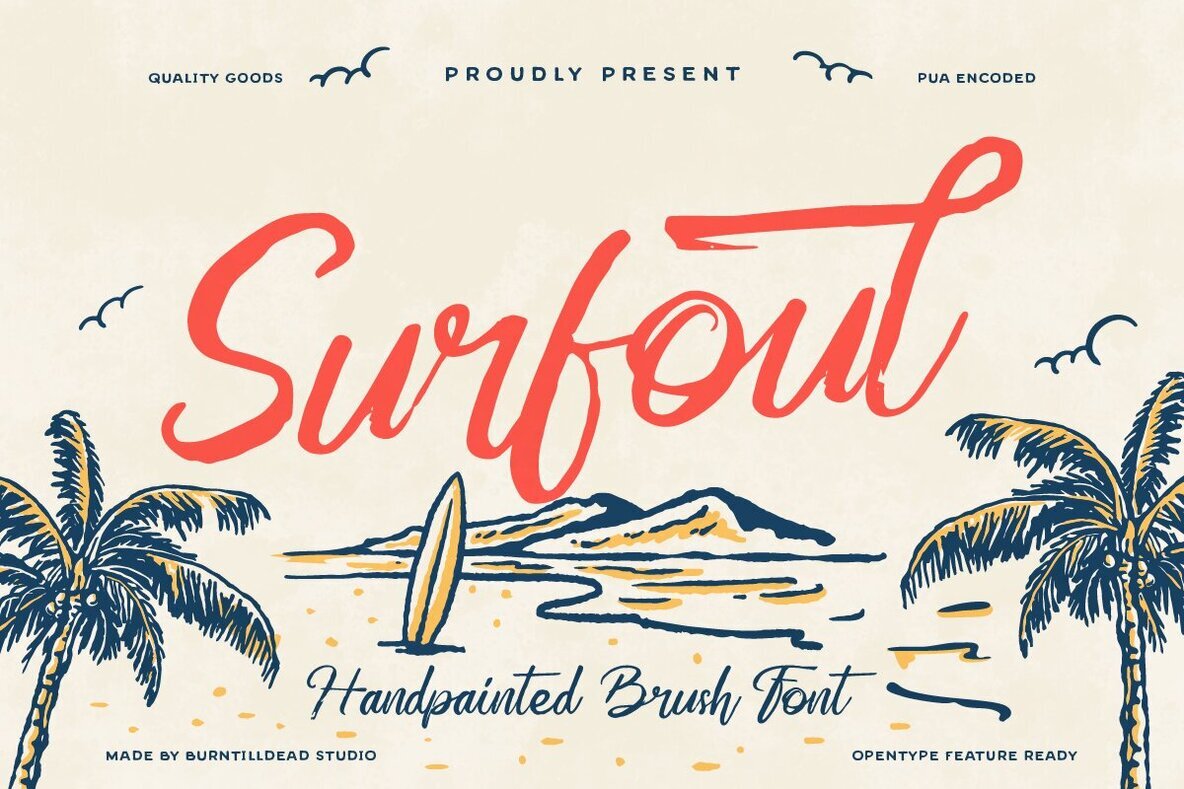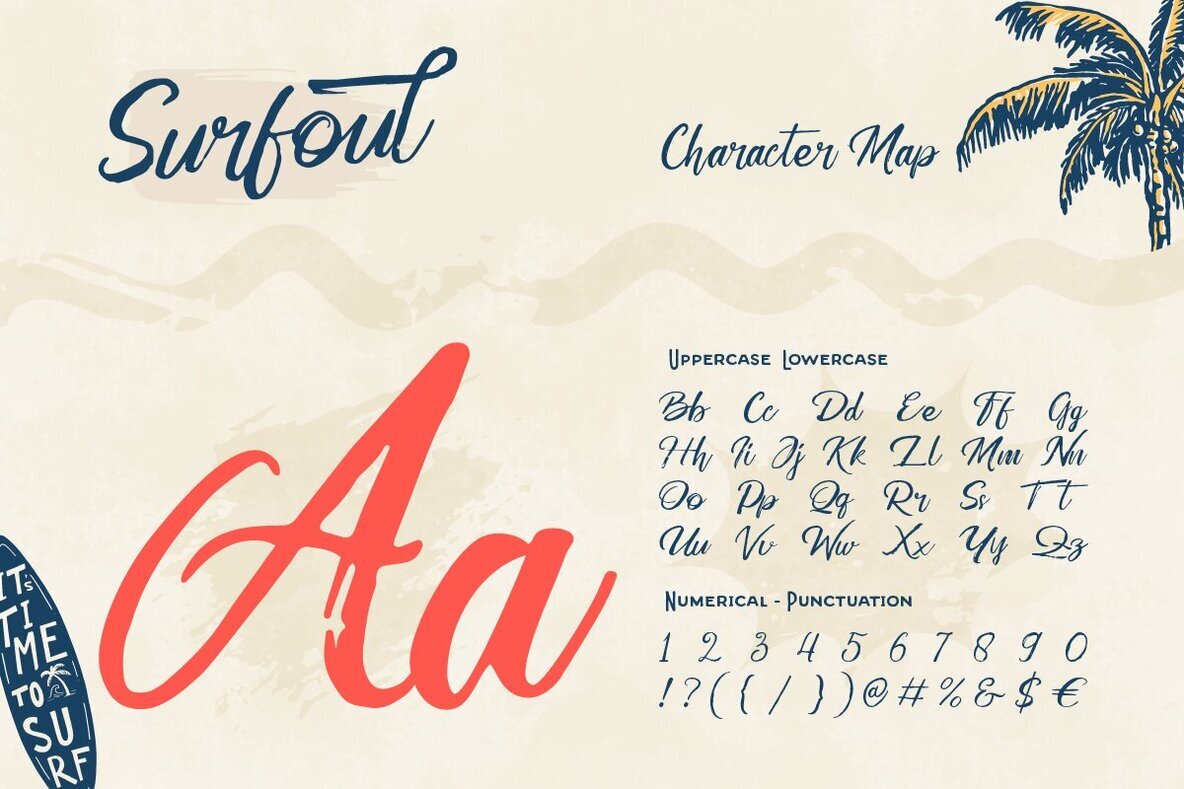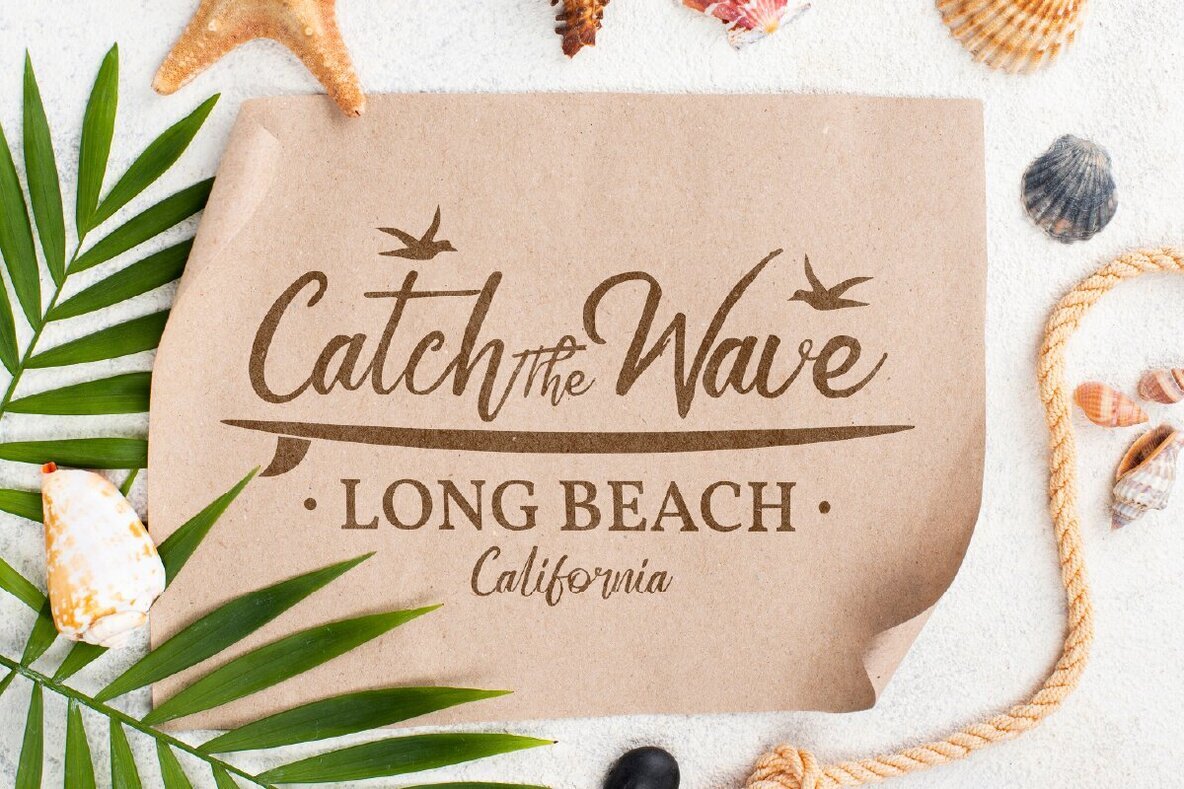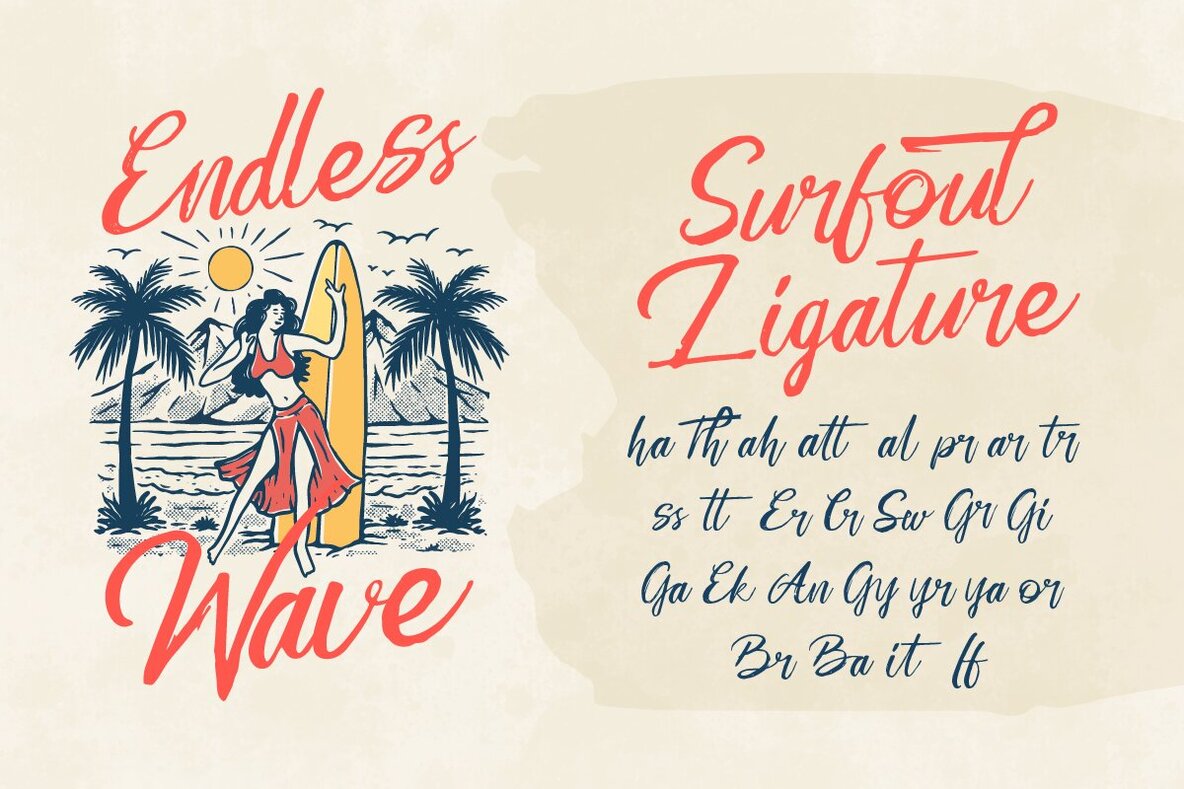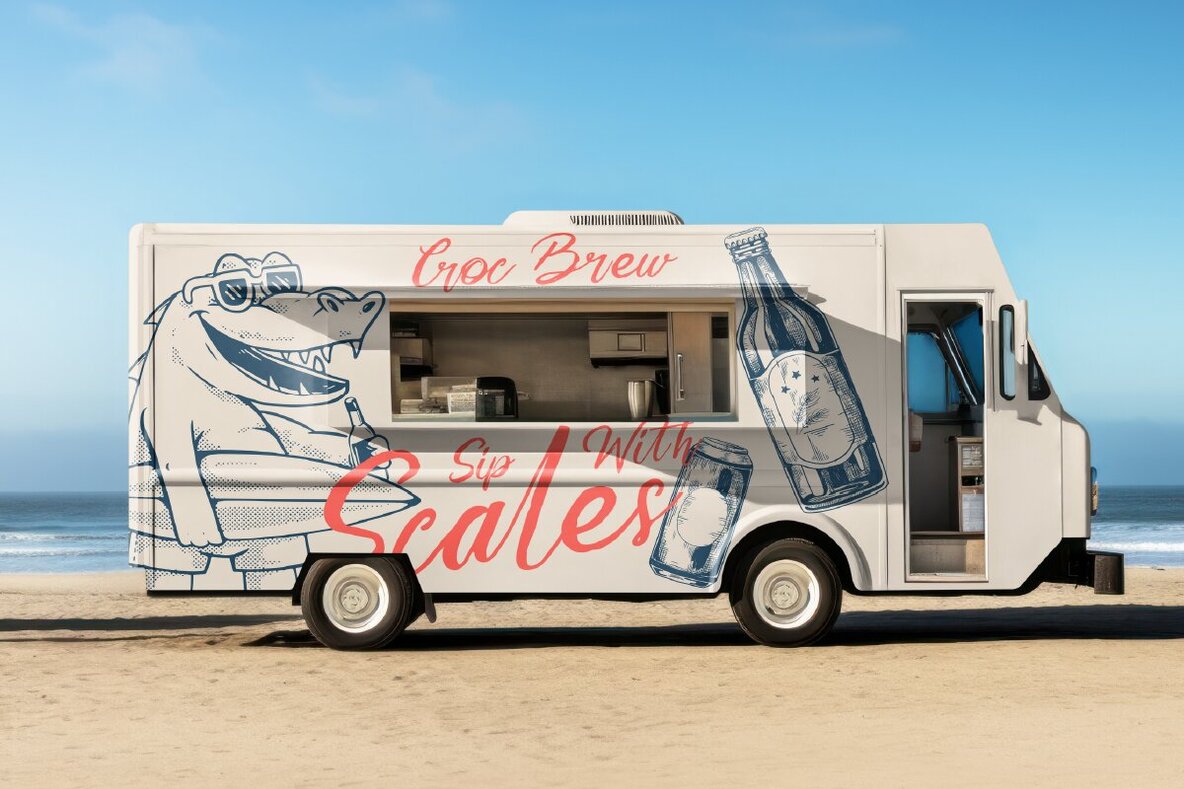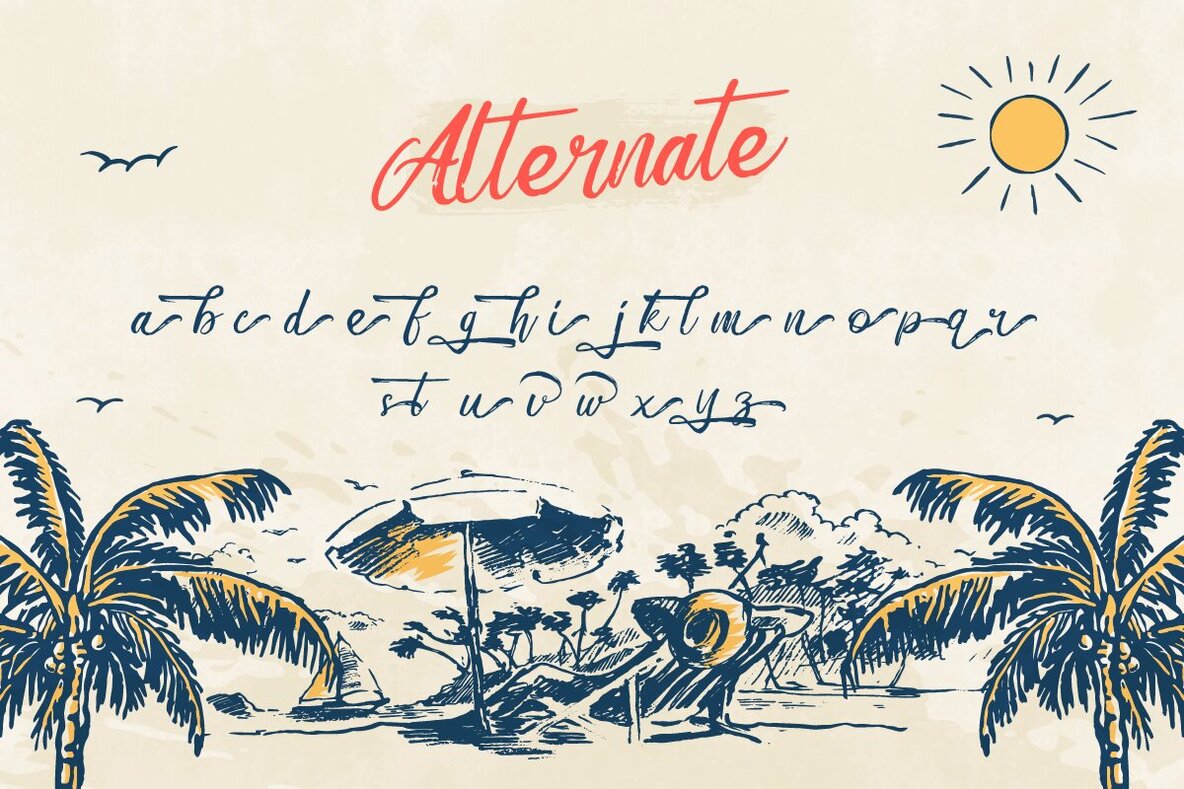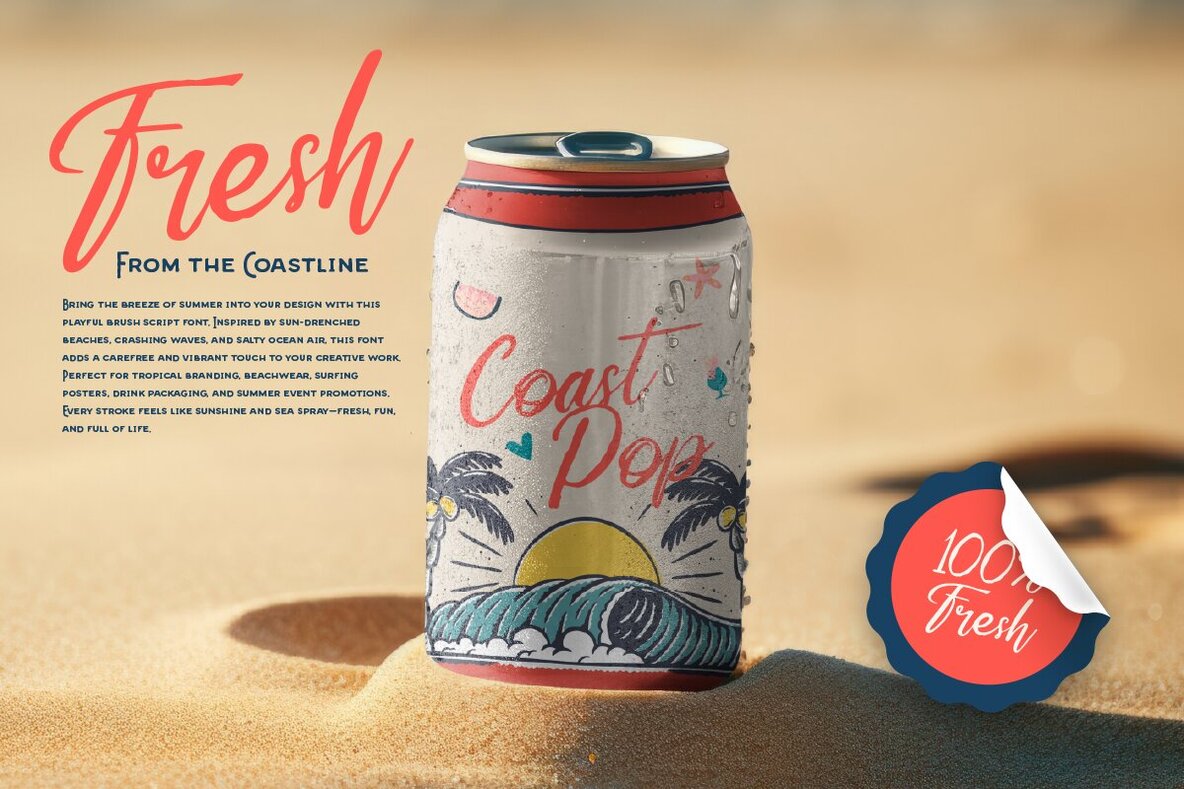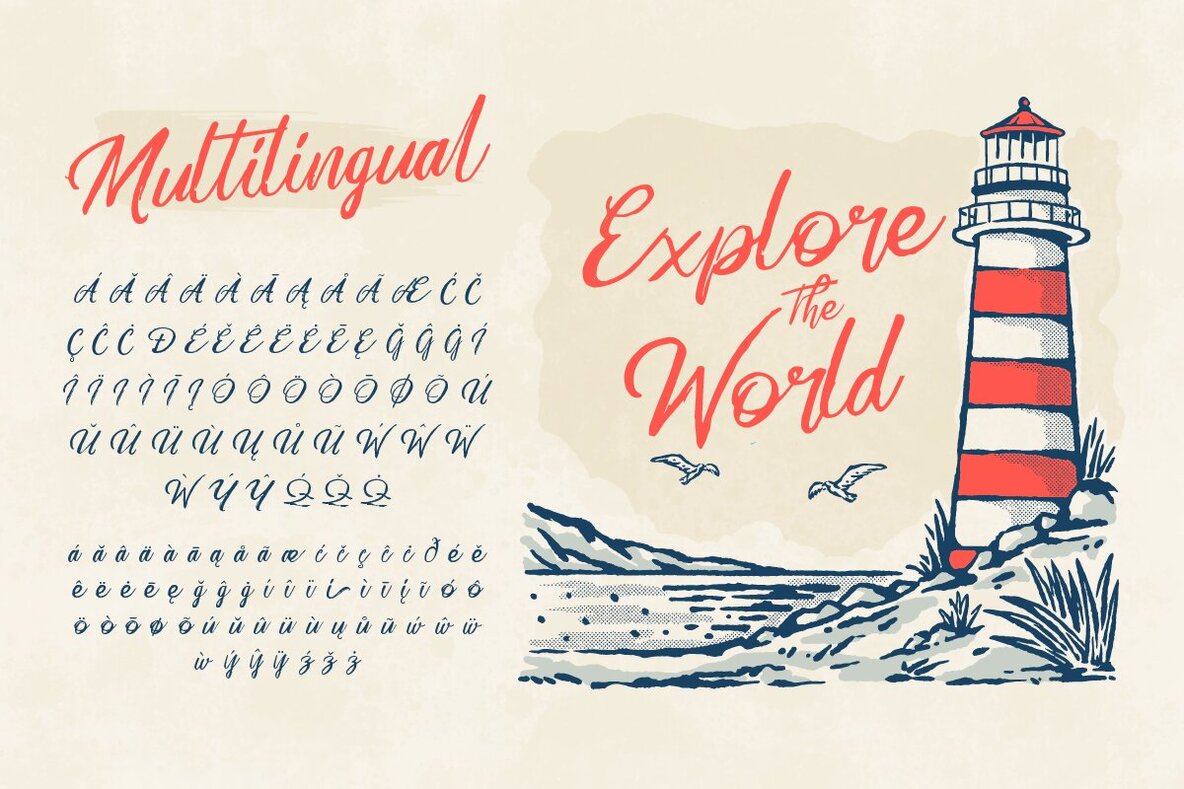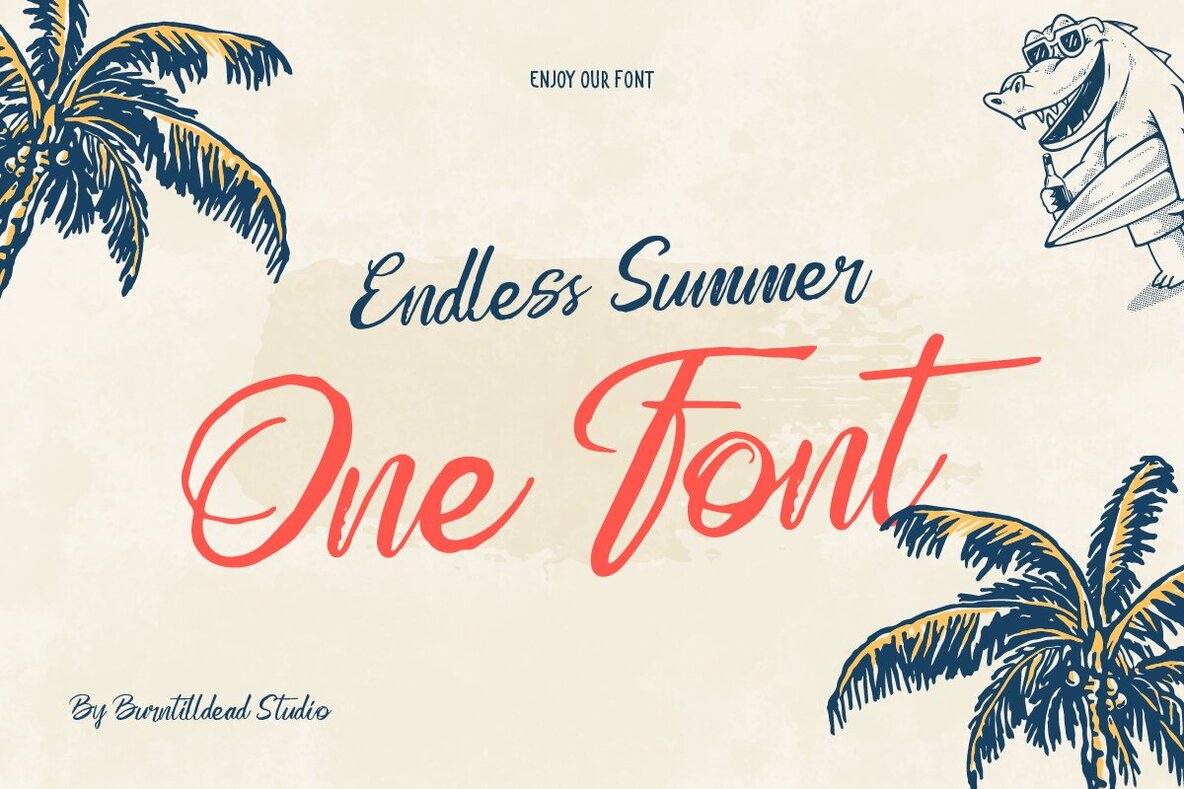
Surfoul Font
Surfoul Regular
Say hello to Surfoul, a handpainted brush font that brings the spirit of summer right into your designs! this font is perfect for anyone looking to add a personal and energetic touch to their creative work. With bold strokes and a naturally expressive flow, Surfoul captures the carefree vibe of beach days, surfboards, and endless sunshine. Designed to feel spontaneous yet smooth, whether you're working on branding, posters, or Instagram quotes, Surfoul brings that warm, playful character you need. Perfect for summer posters, travel blogs, beachwear brands, social media graphics, event promos, product packaging, and anything that needs a splash of tropical soul. Features: